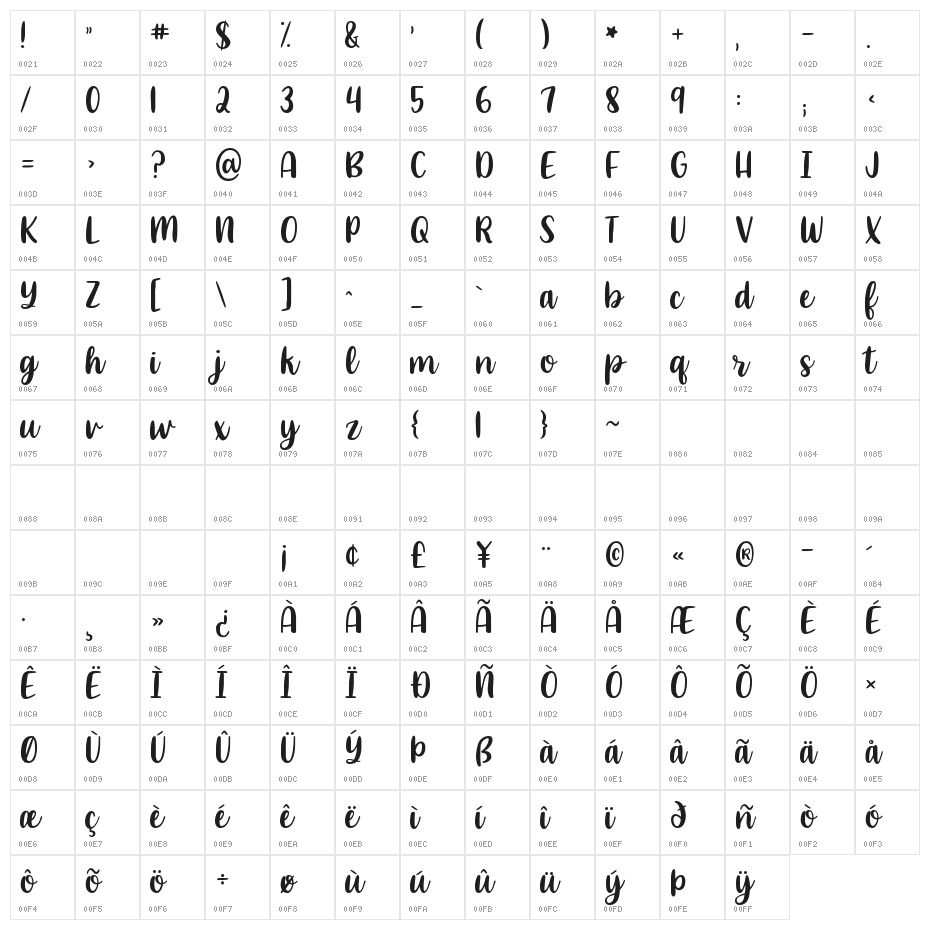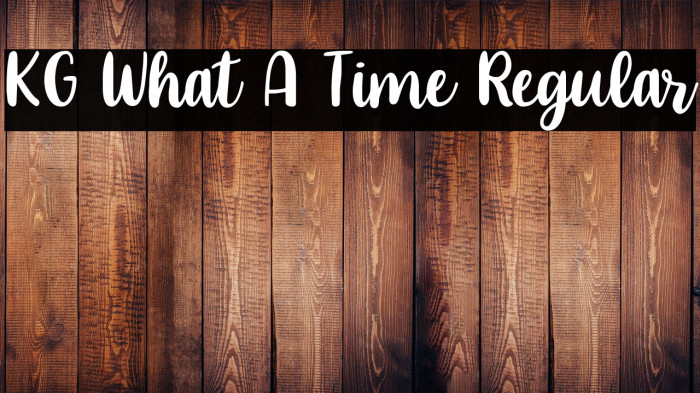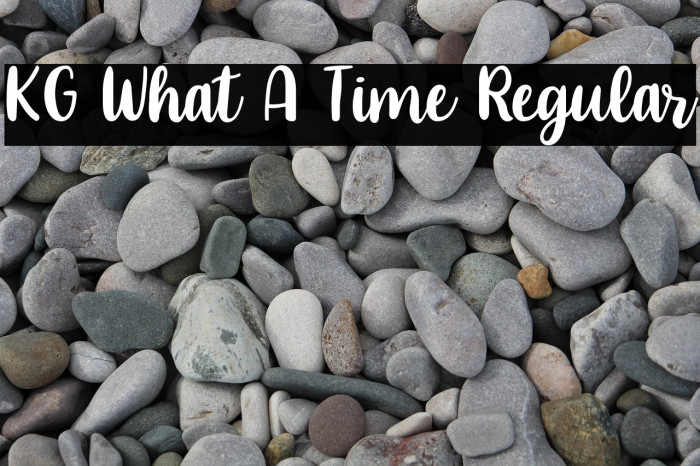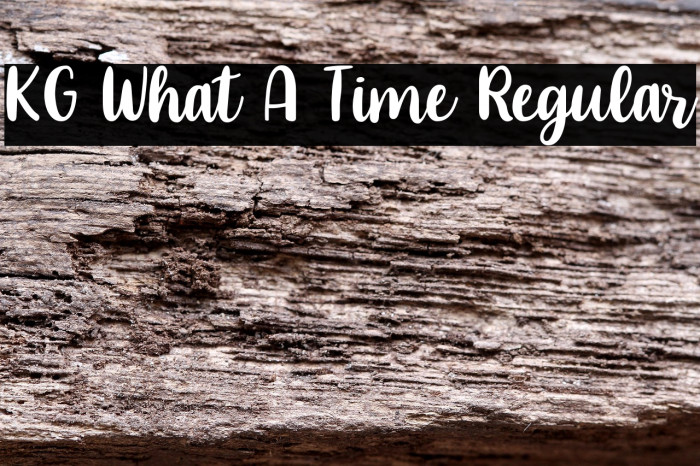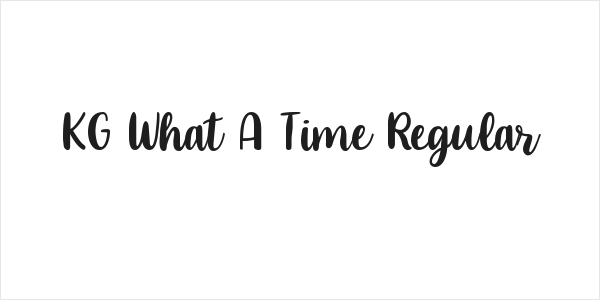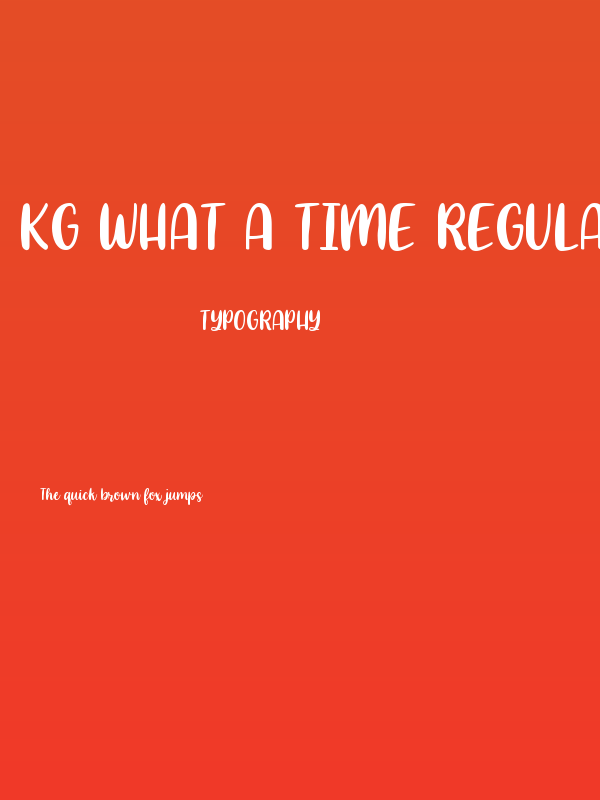
KG What A Time Regular Font
KG What A Time Regular Description
This font features a playful and bold script style with a handwritten feel. The letters are slightly slanted, giving a dynamic and energetic appearance. The strokes are thick and consistent, providing a strong visual impact. The uppercase letters are tall and prominent, while the lowercase letters maintain a smooth and flowing connection. The numerals are rounded and match the overall style, ensuring coherence across different uses. Special characters are included, maintaining the same bold and lively aesthetic. This font is versatile, suitable for a variety of creative projects that require a personal touch.
| Overall Style | Playful, Energetic |
| Proposed Projects | Ideal for greeting cards, invitations, branding, and social media graphics. |